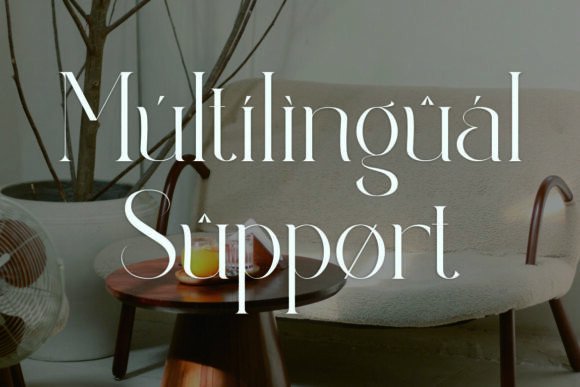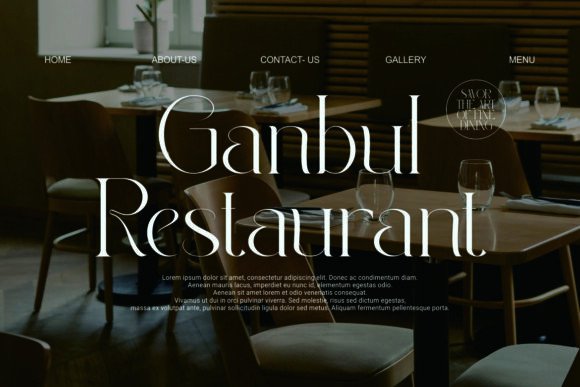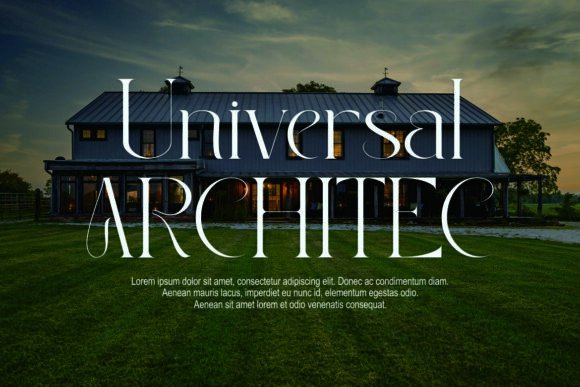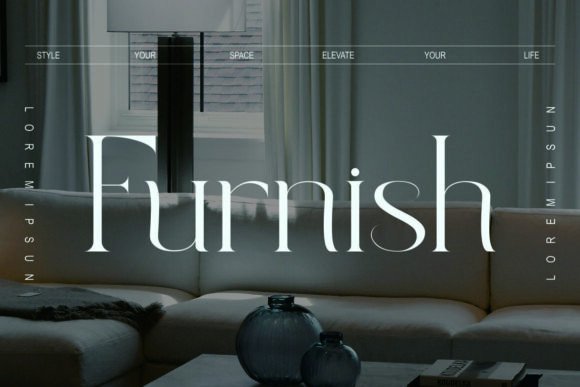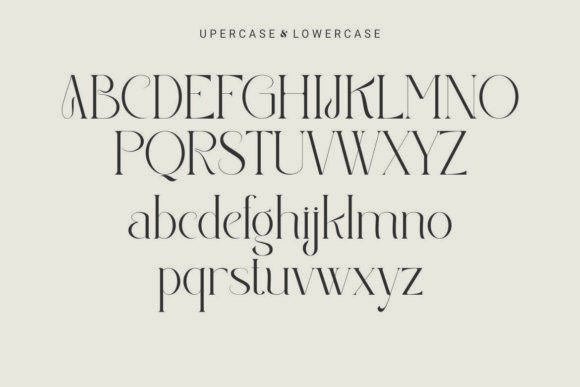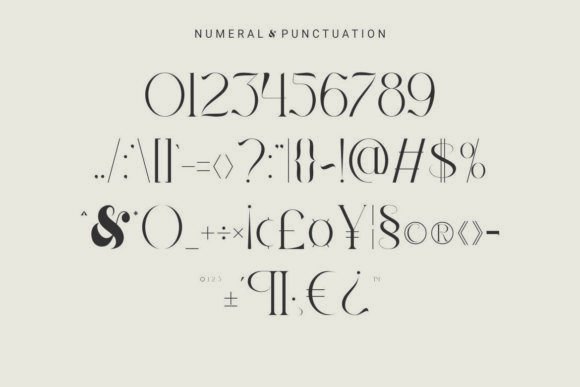
The Elegance of Govanie Font: A Designer’s Delight
I still remember the time I was working on a wedding invitation project, and I just couldn’t find the right font to convey the elegance and sophistication my client was looking for. I scoured through countless font libraries, but nothing seemed to fit the bill. That was until I stumbled upon Govanie Font. ✨
As soon as I laid eyes on its beautiful serif lines, I knew I had found the one. Govanie Font is an elegant and bold serif font that has become a staple in my design toolkit. Its incredibly versatile style makes it perfect for creating gorgeous wedding invitations, beautiful stationery art, eye-catching social media posts, and much more!
- ✨ Elegant and bold serif lines that exude sophistication
- ✅ Highly versatile and adaptable to various design projects
- ✅ Beautifully crafted to add a touch of luxury to any design
- ✅ Easy to read and understand, even in smaller font sizes
While Govanie Font is an amazing font, there are a few minor quirks to be aware of: 🤔
- ⚠️ Some users may find the font’s boldness overwhelming for certain design projects
- ⚠️ Limited availability of certain OpenType features in certain software
The Backstory of Govanie Font
Govanie Font was designed with the intention of creating a beautiful and elegant serif font that would add a touch of luxury to any design. The designer aimed to create a font that would be highly versatile and adaptable to various design projects, from wedding invitations to social media posts.
Q: What is Govanie Font?
A: Govanie Font is an elegant and bold serif font designed for creative professionals and hobbyists.
Q: What can I use Govanie Font for?
A: Govanie Font can be used for a wide range of design projects, including wedding invitations, stationery art, social media posts, and more.
Q: Is Govanie Font easy to read?
A: Yes, Govanie Font is designed to be easy to read and understand, even in smaller font sizes.